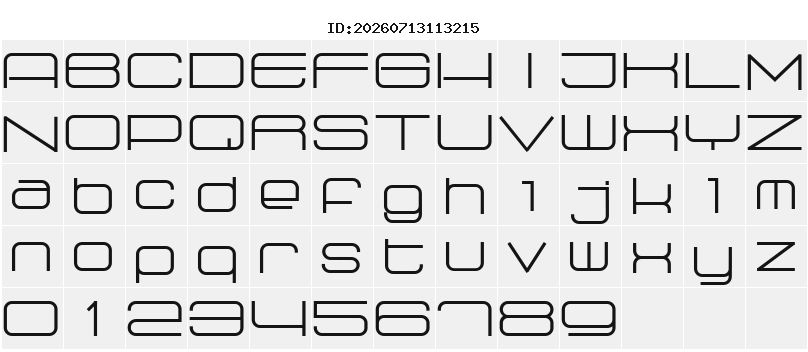
Radio 187.5 Preview
• Font Name: Radio 187.5
• Full Font Name: Radio 187.5 Bold
• Designer: Måns Grebäck
About Radio 187.5.ttf
Radio 187.5.ttf is a modern, elegant sans-serif font designed for ultimate readability and visual harmony. Perfect for branding, headlines, web design, and print materials.